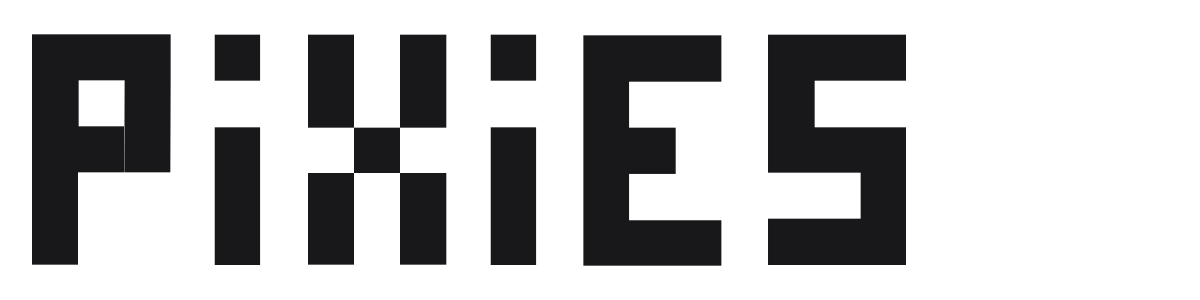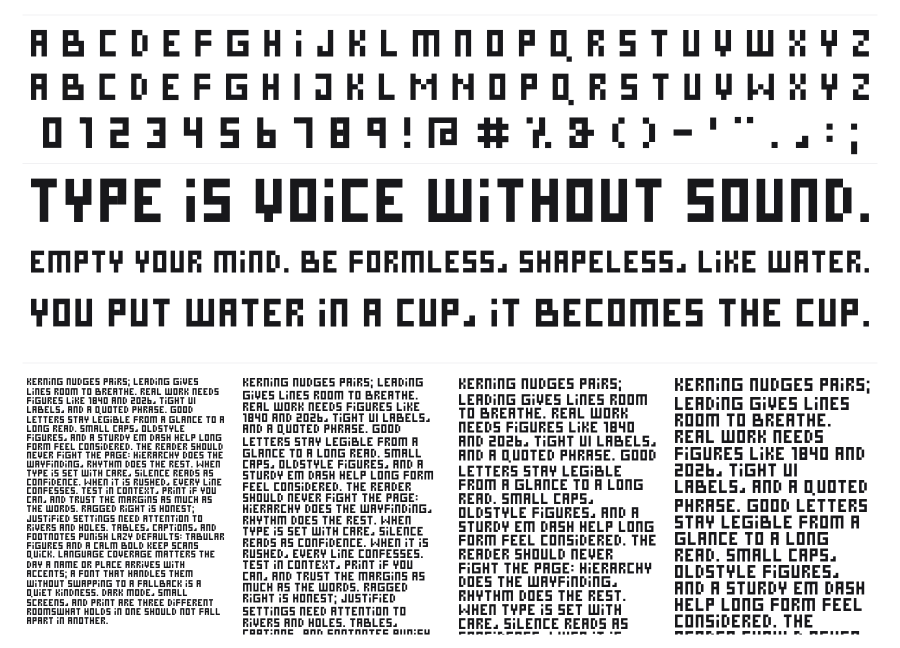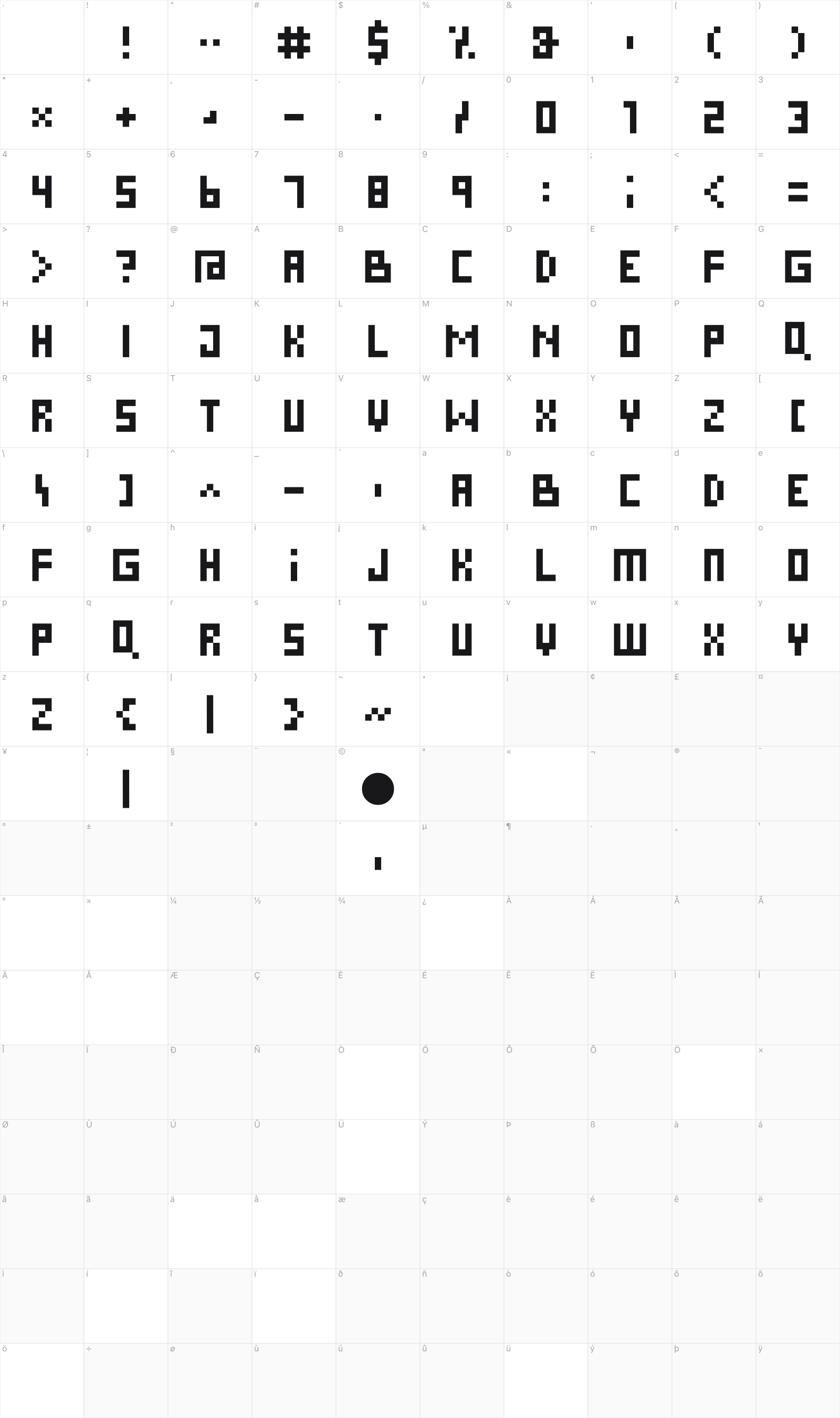
Pixies
Pixies is a chunky bitmap-style display font built entirely from square pixel modules. Every stroke and corner is strictly rectilinear, giving it the unmistakable look of early arcade and 8-bit video game lettering. It hits hard at large sizes and carries a lot of retro digital personality.